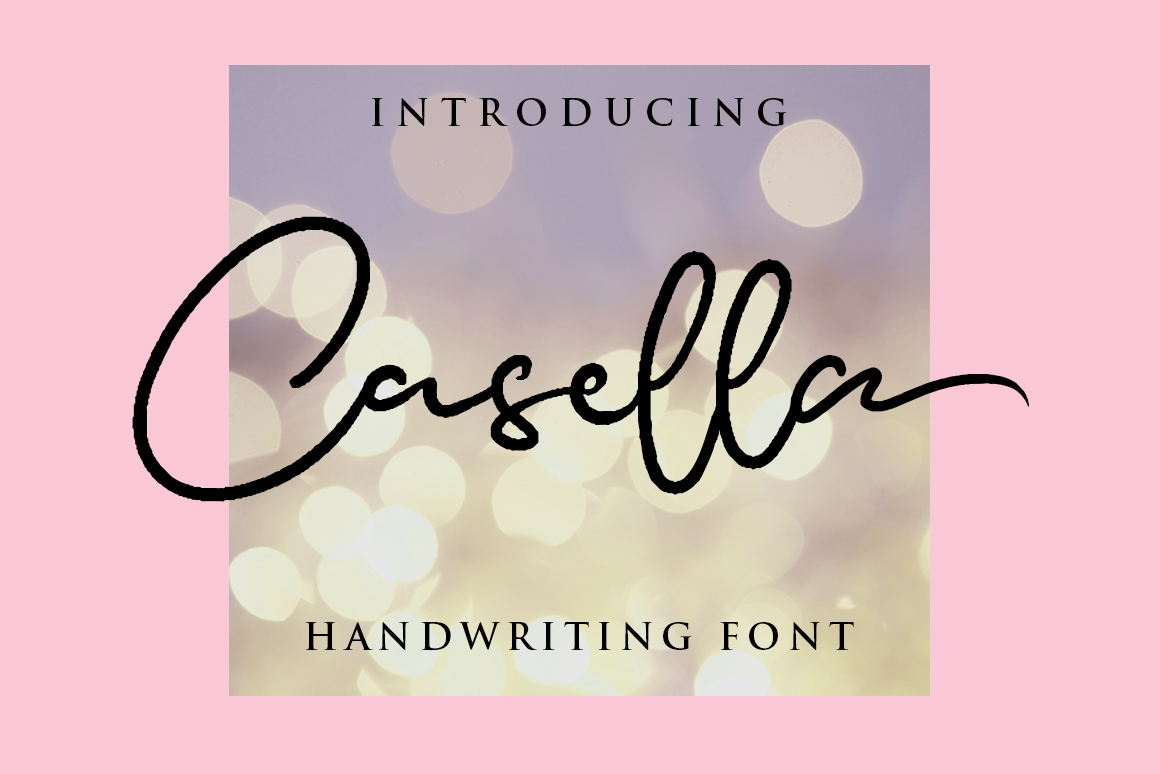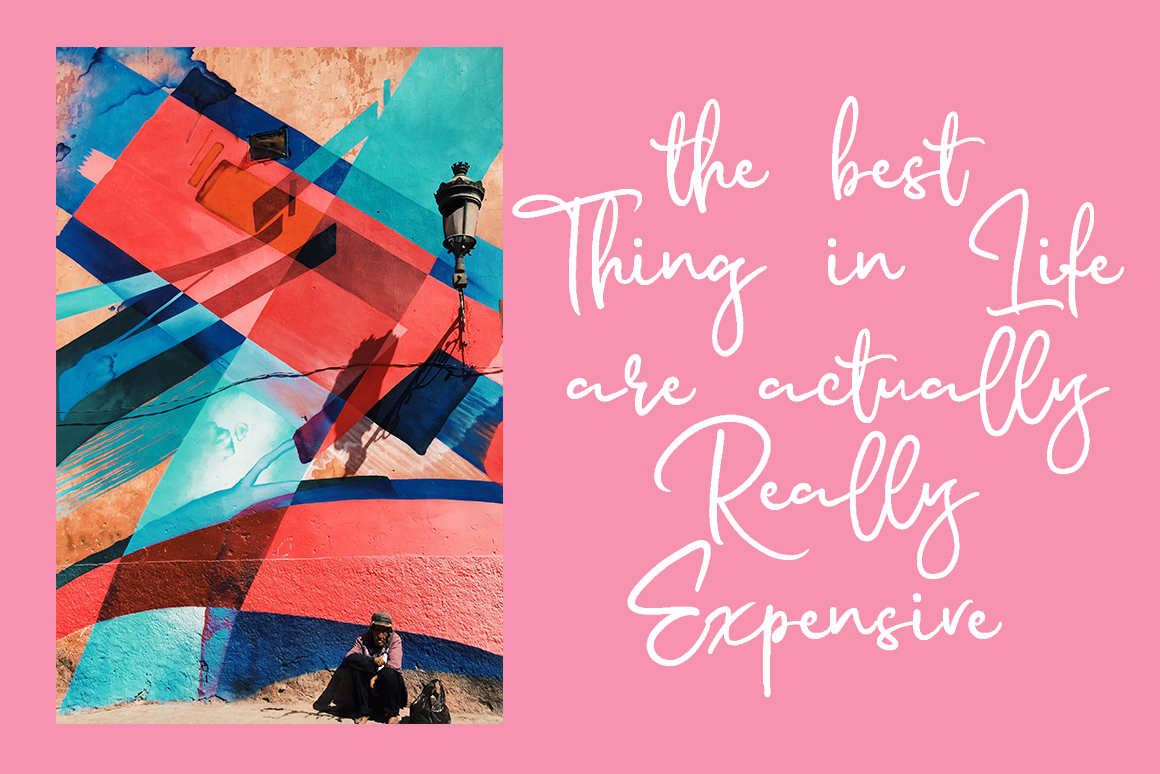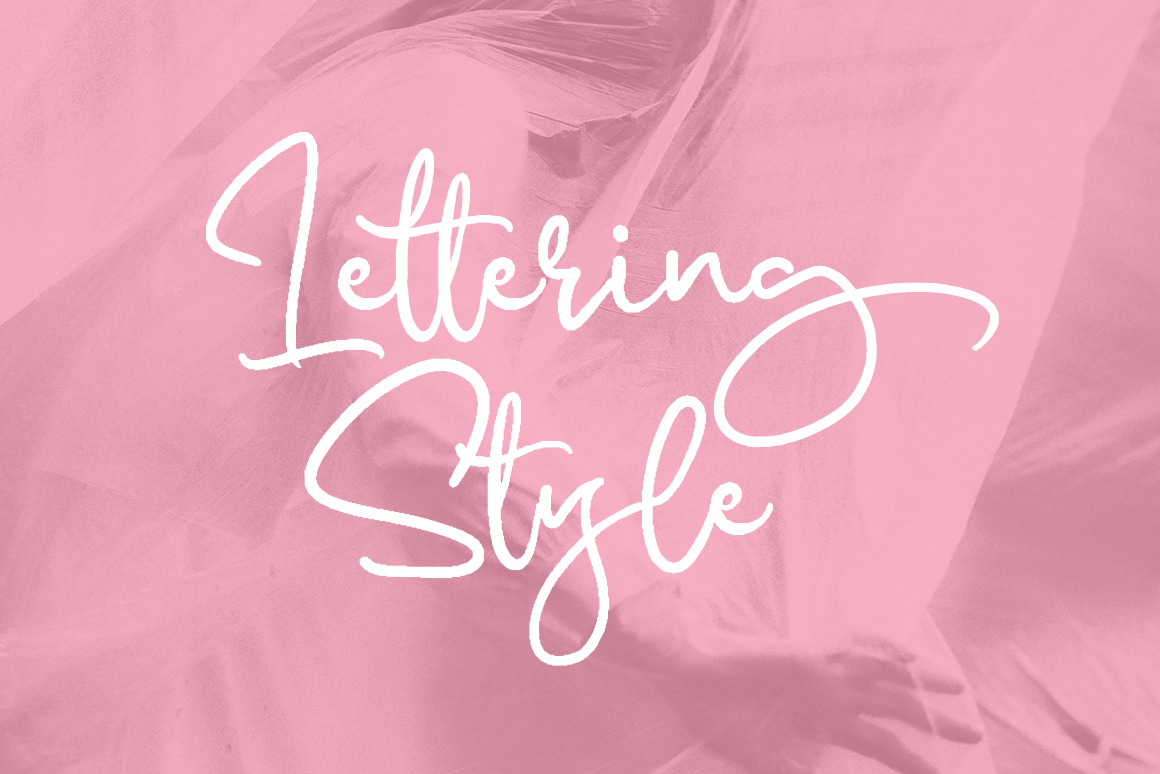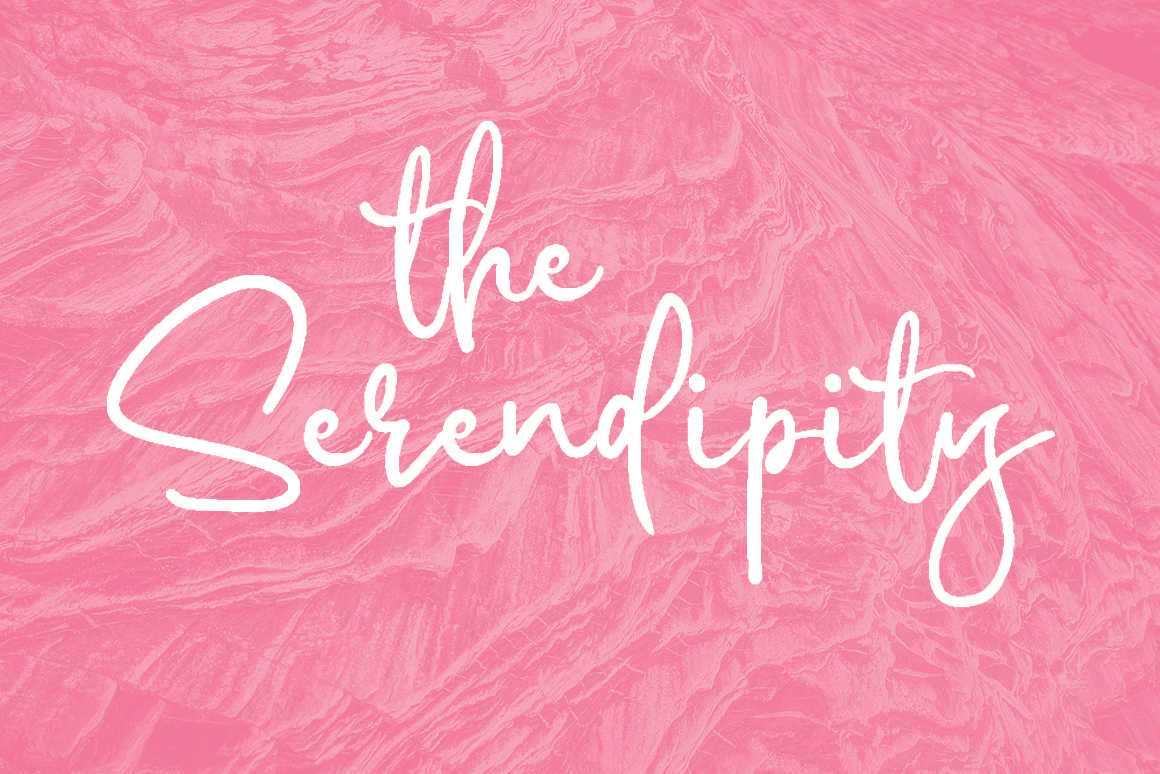
Casella Font
About Casella Font
Casella is a gorgeous script font, perfect for use in a wide range of project types. This stylish signature font is well weighted and reads well in poppy colorful designs.